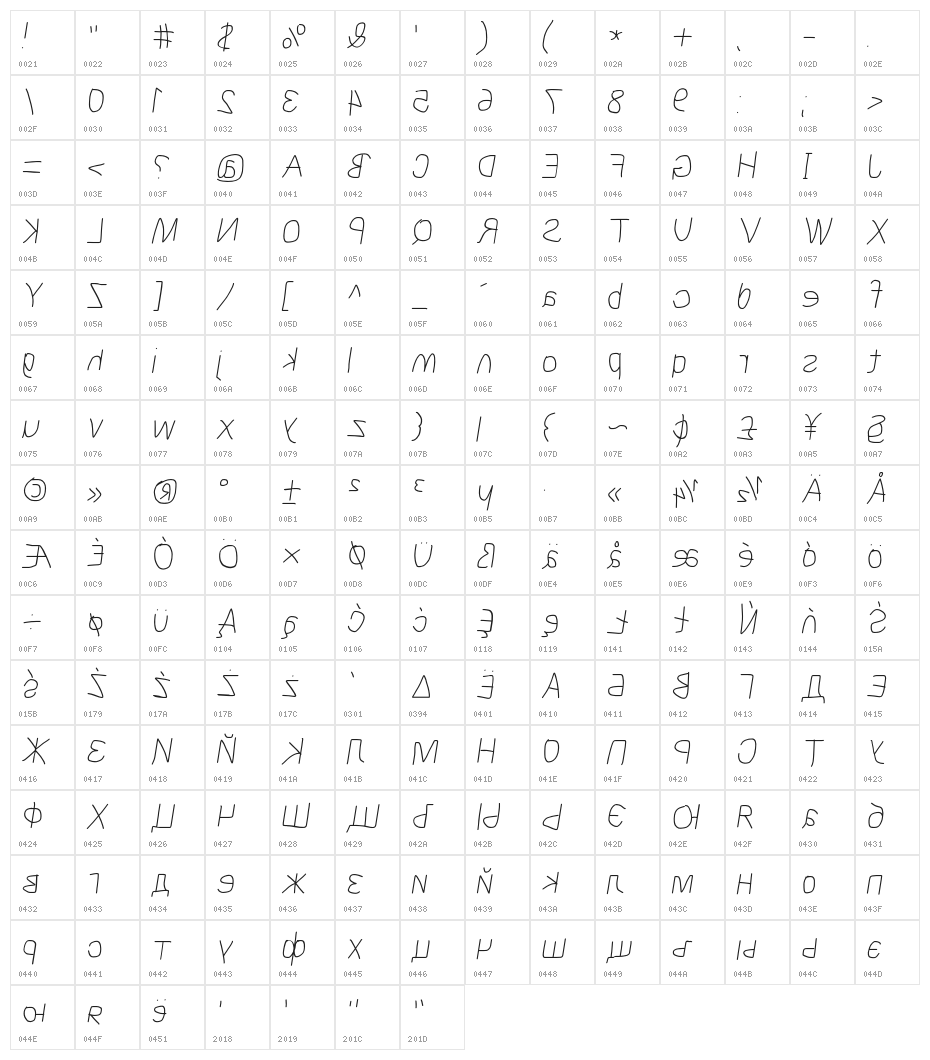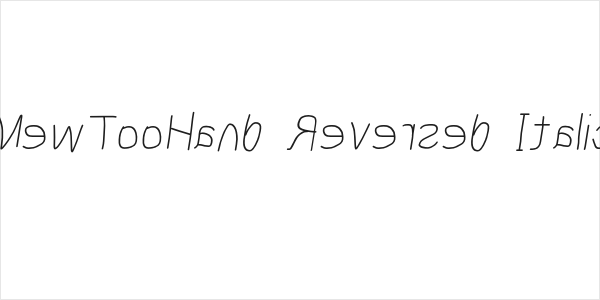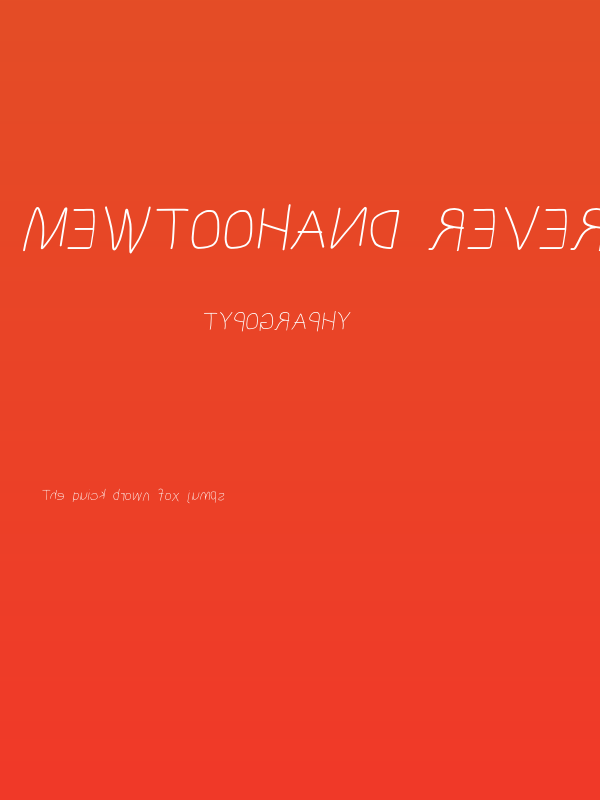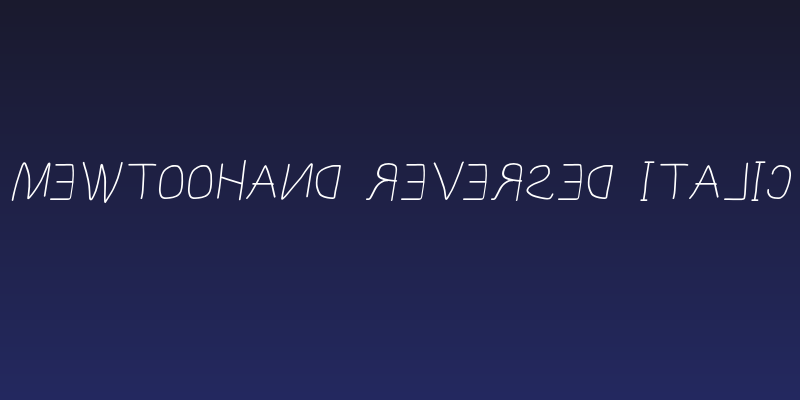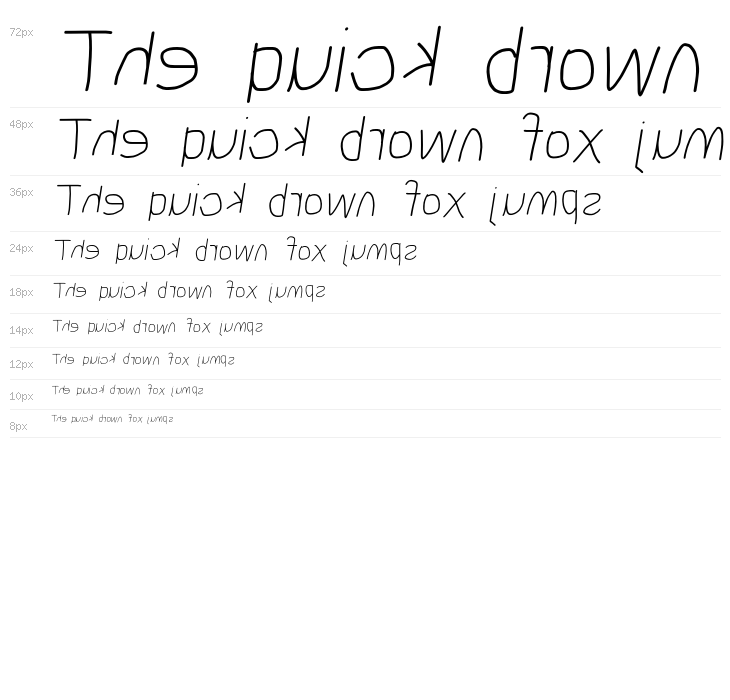
MewTooHand Reversed Italic Font
MewTooHand Reversed Italic Description
This font features a playful and informal handwritten style with a reversed italic slant, giving it a unique and quirky appearance. The characters are slightly elongated and have a consistent stroke width, contributing to a casual and approachable feel. The letters are well-spaced, maintaining readability despite their unconventional orientation. The font includes a full set of uppercase and lowercase letters, numbers, and a variety of special characters, making it versatile for different design needs.
| Proposed Projects | Ideal for creative projects such as greeting cards, children's books, playful branding, and informal invitations. |